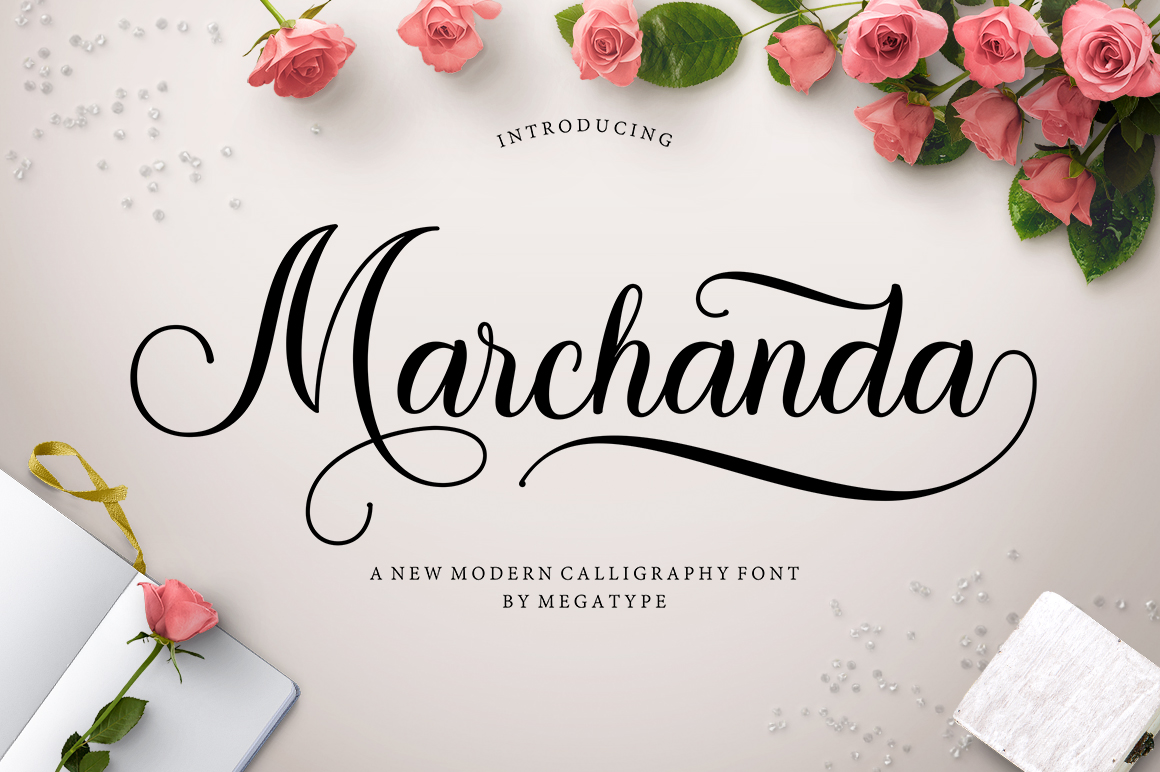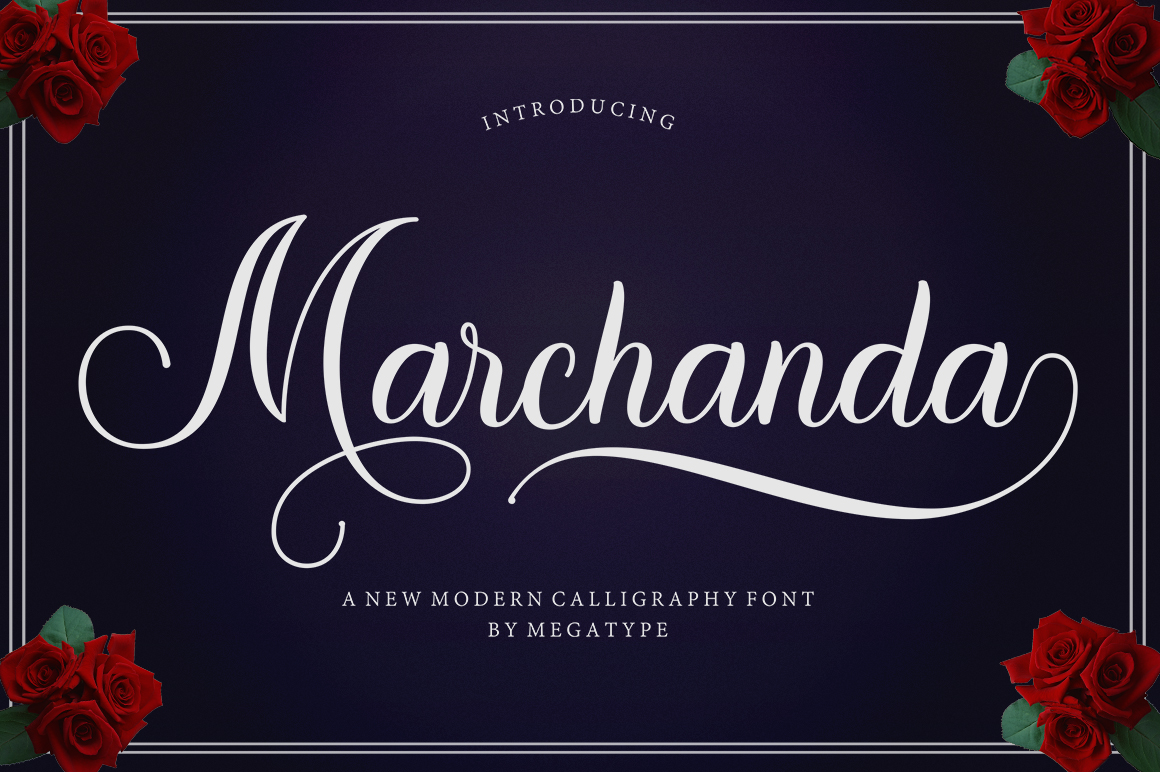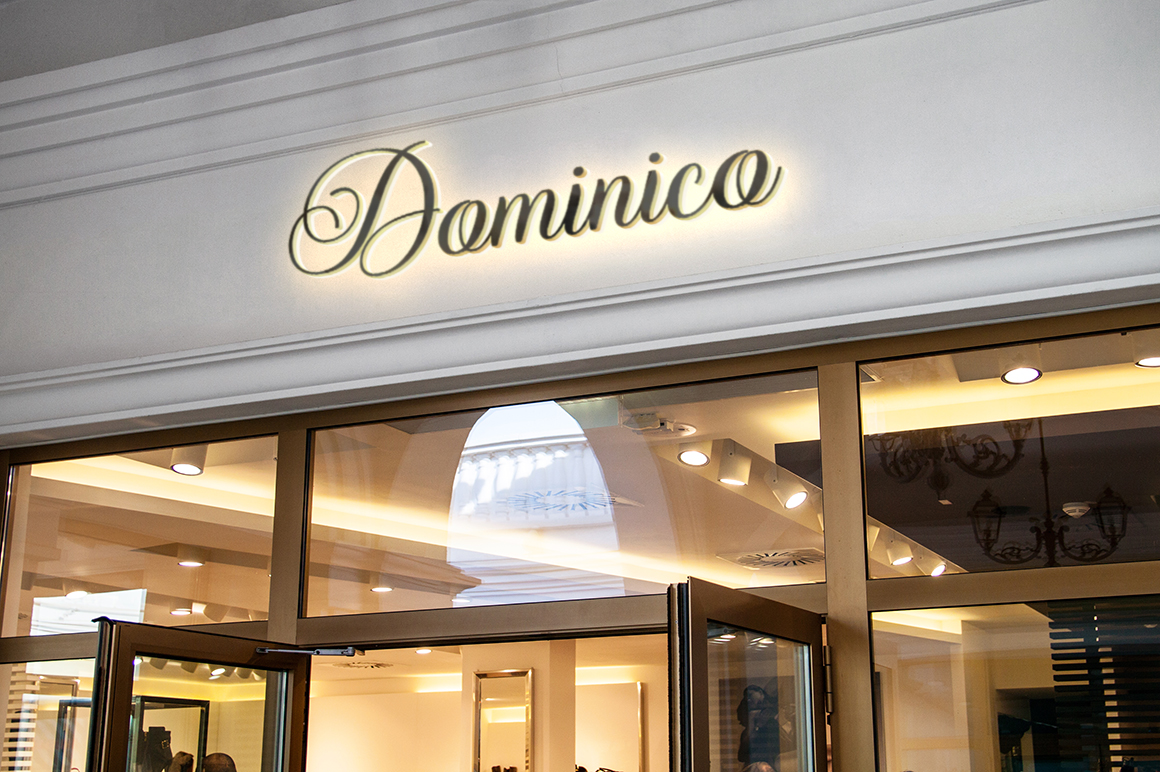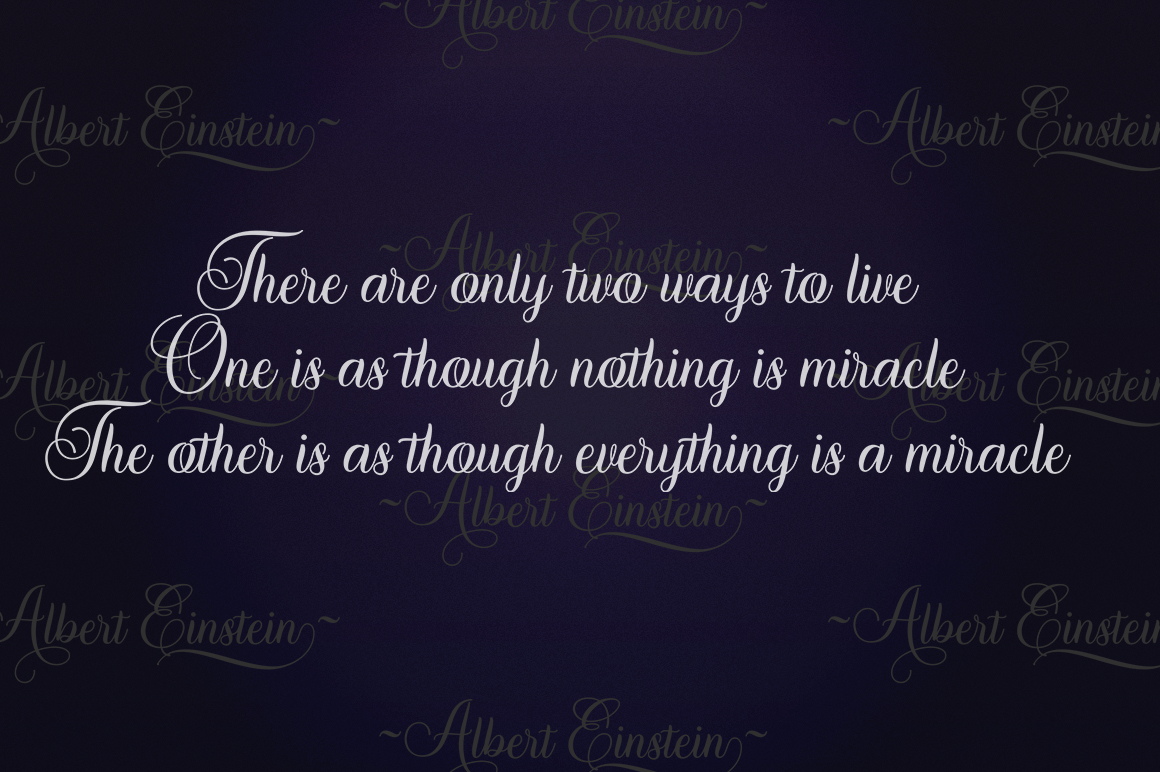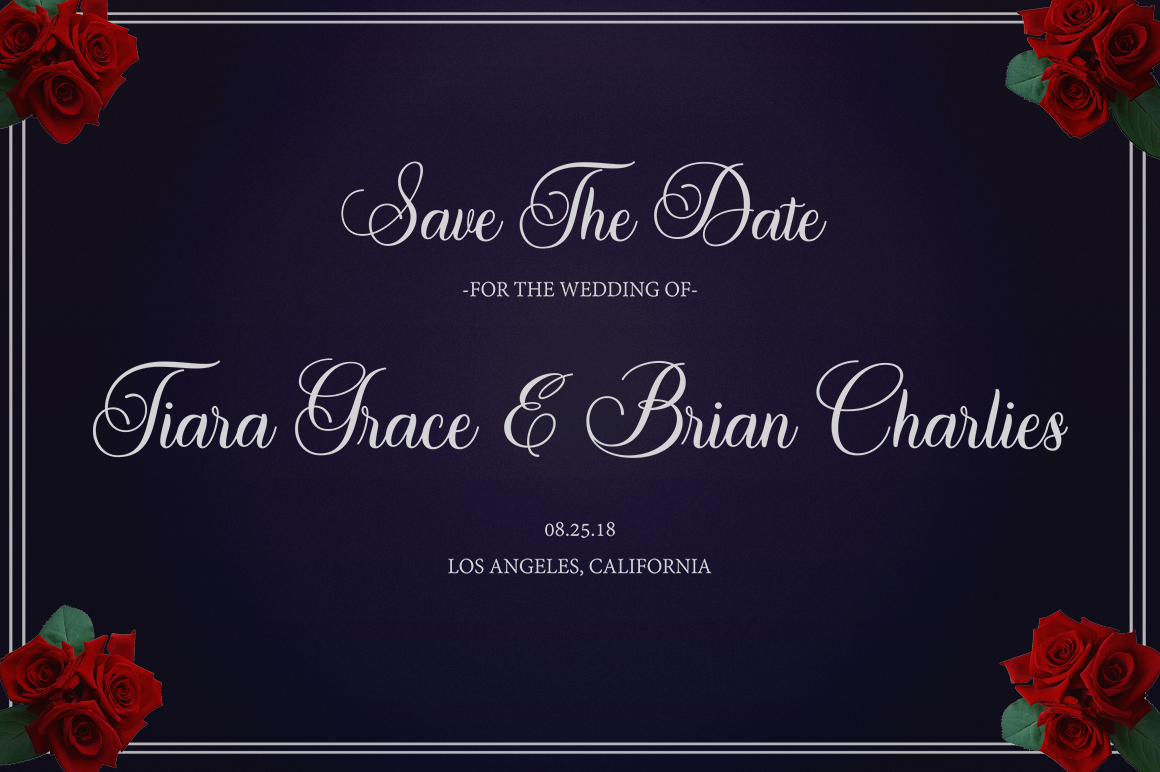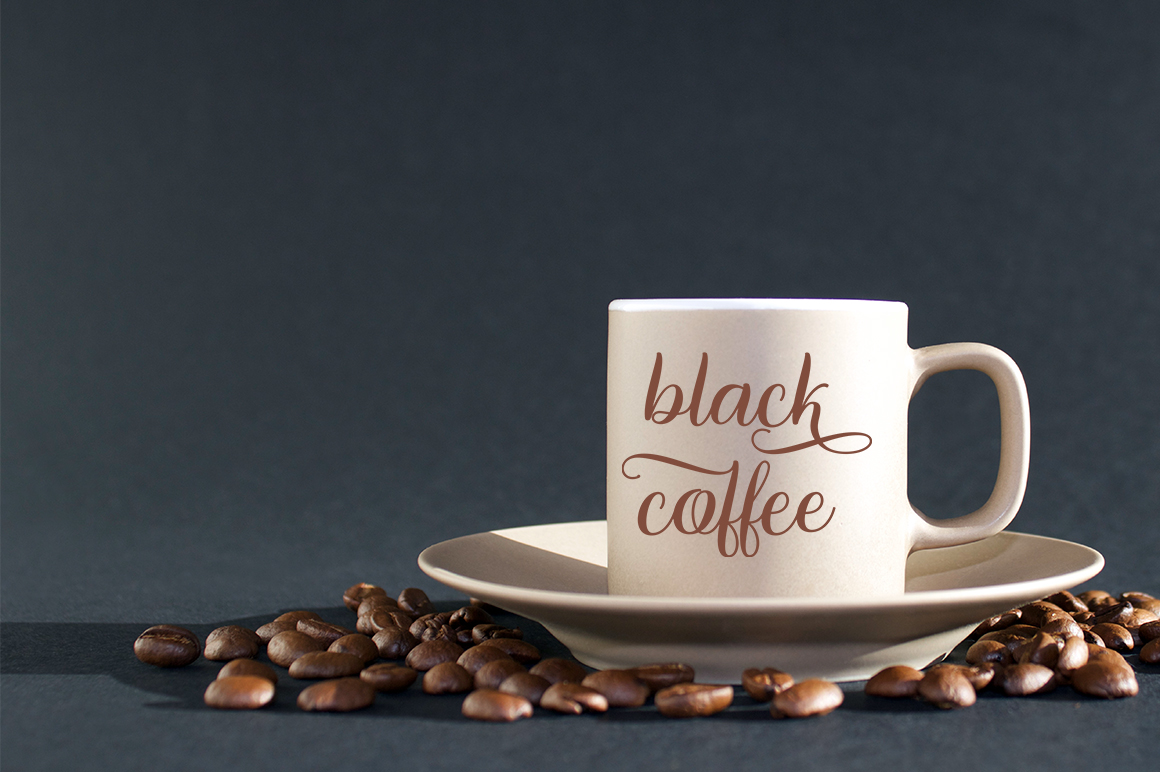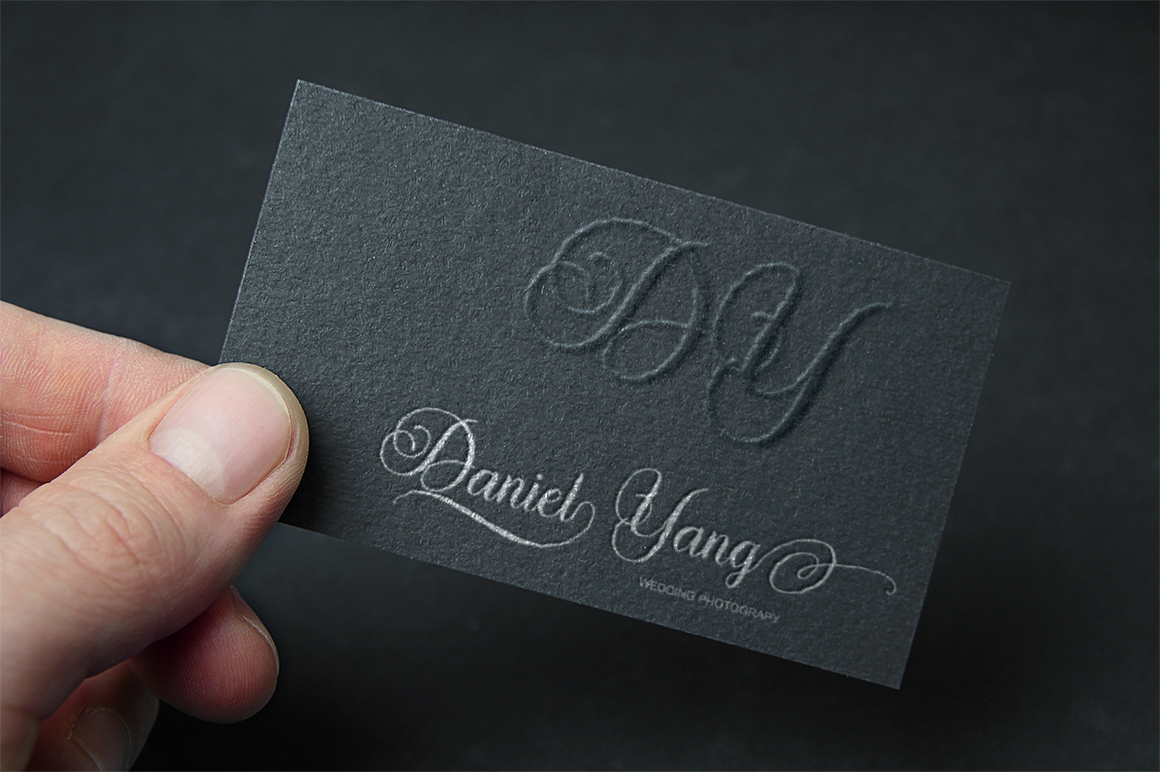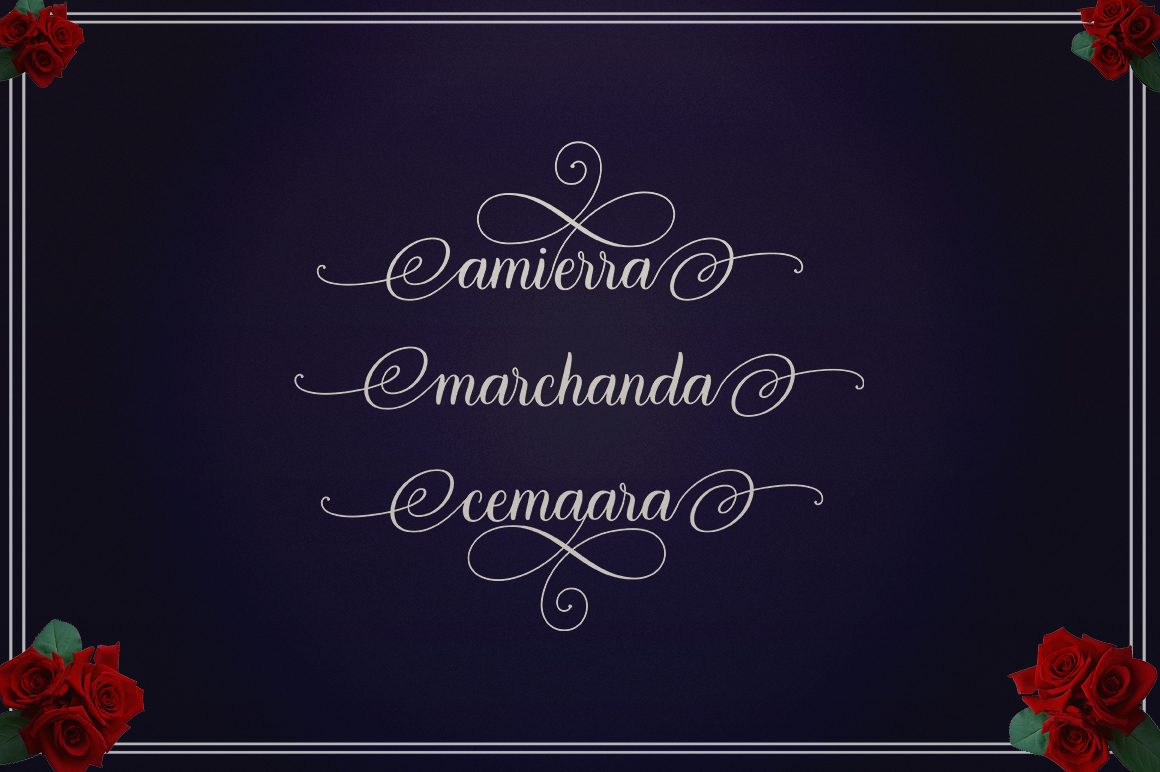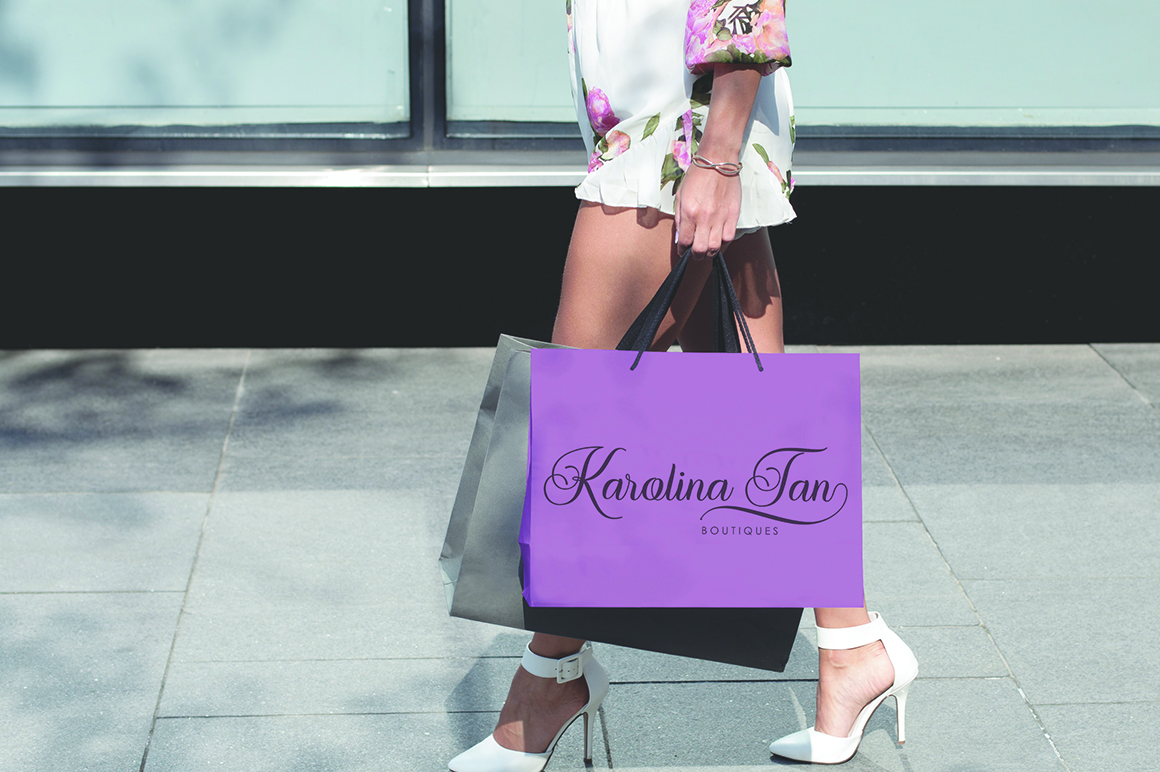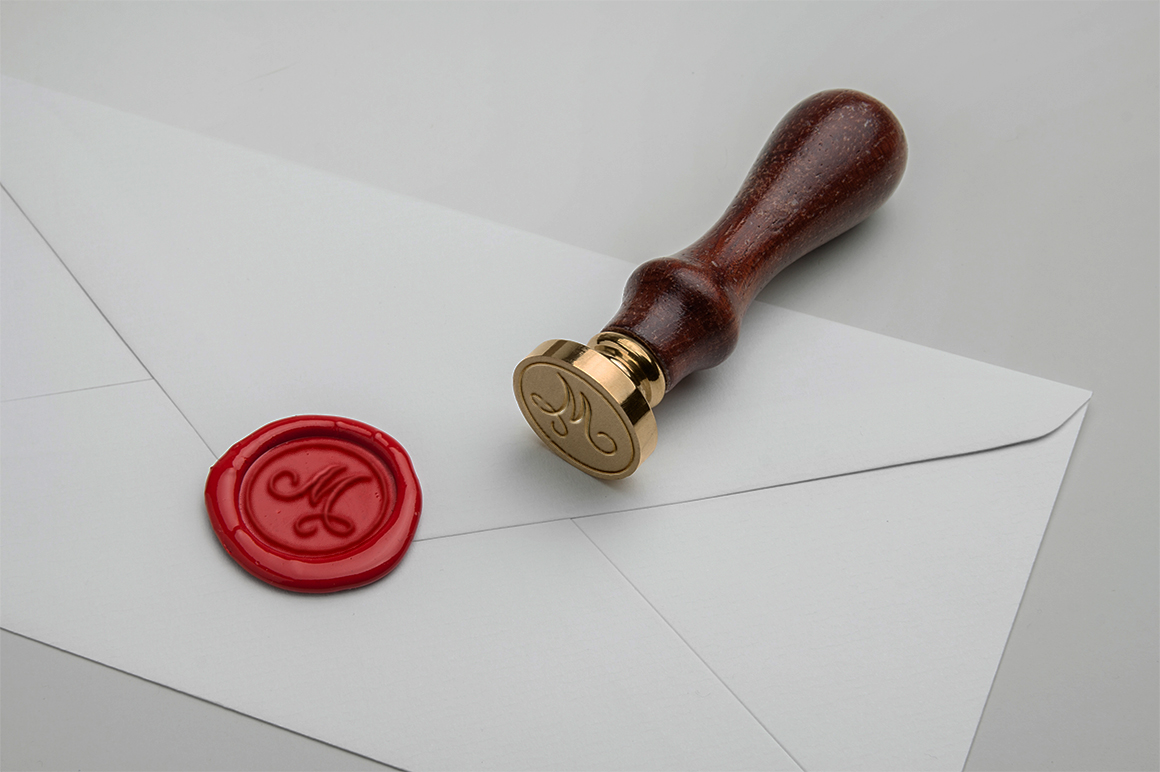
Marchanda Script is modern calligraphy design, including Regular and Slant. This font is casual and pretty with swashes. Can used for various purposes. such as logo, product packaging, wedding invitations, branding, headlines, signage, labels, signature, book covers, posters, quotes and more.
Marchanda Script features OpenType stylistic alternates, ligatures and International support for most Western Languages is included. To enable the OpenType Stylistic alternates, you need a program that supports OpenType features such as Adobe Illustrator CS, Adobe Indesign & CorelDraw X6-X7, Microsoft Word 2010 or later versions.